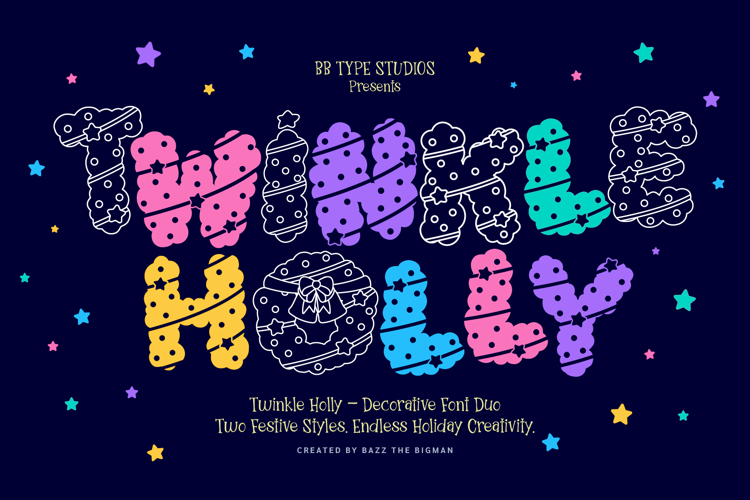
Twinkle Holly
Immerse your yuletide designs in the holiday cheer of ‘Twinkle Holly’, a vibrant font duo, conceived from the merriment of Christmas embellishments, twinkling stars, lavish ribbons, and whimsical festive trim. This portfolio offers two distinct hand-rendered typography styles, primed to fuel boundless creativity.
🎄 ‘Twinkle Holly – Regular,’ teems with lively Christmas adornments, flirty details, enveloping your projects in the authentic spirit of hand-carved holiday enchantment.
✏️ ‘Twinkle Holly – Outline,’ presents a neat, sketched version ideal for color-in pages, do-it-yourself crafts, children’s pastime, reproducible projects, layering techniques, and imaginative Christmas decorations.
Whether your project entails conceiving greeting cards, creating gift labels, devising classroom tasks, or decking out for the holidays, Twinkle Holly injects a quotient of joy and creativity into every endeavor.